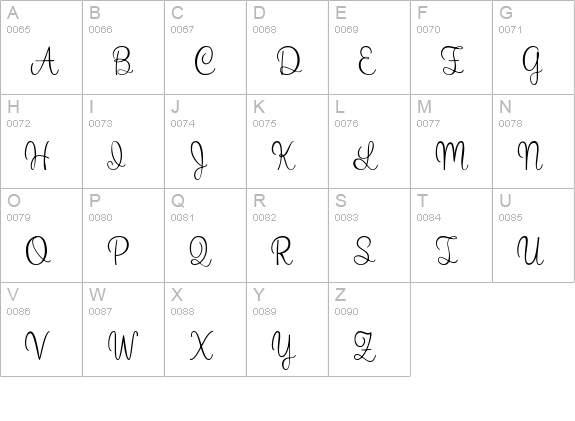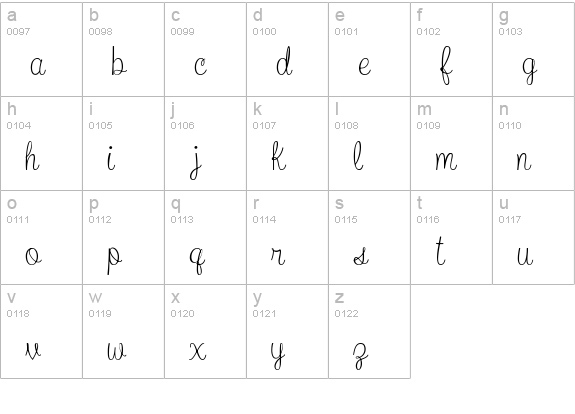
What I Want For Christmas Font Details
Introducing the delightful and charming "What I Want For Christmas" font, the perfect addition to your holiday design projects. This whimsical typeface captures the joy and spirit of the festive season, making it the ultimate choice for all your Christmas-themed creations. The "What I Want For Christmas" font features a playful and cheerful design, reminiscent of handwritten letters to Santa Claus. Its distinctive strokes and decorative elements add a touch of magic and wonder to any text, instantly transporting your audience to a winter wonderland. But what makes this font truly special is that it is freely available to download at FontsMarket.com. Yes, you read that right – this incredible font can be yours at no cost! Whether you're a professional graphic designer or a passionate hobbyist, the "What I Want For Christmas" font is the perfect gift that keeps on giving. Spread holiday cheer with festive greeting cards, invitations, posters, or social media graphics that showcase the unique charm of this font. Its versatility allows you to create both playful and sophisticated designs, making it suitable for a wide range of projects. With its smooth curves, elegant letterforms, and attention to detail, the "What I Want For Christmas" font is sure to captivate your audience and bring a touch of warmth and nostalgia to your designs. Its easy-to-read style ensures that your message will shine through, making it ideal for both print and digital applications. So why wait? Embrace the spirit of giving this Christmas and download the "What I Want For Christmas" font today, absolutely free at FontsMarket.com. Unleash your creativity, spread joy, and make this holiday season truly unforgettable with this wonderful font.